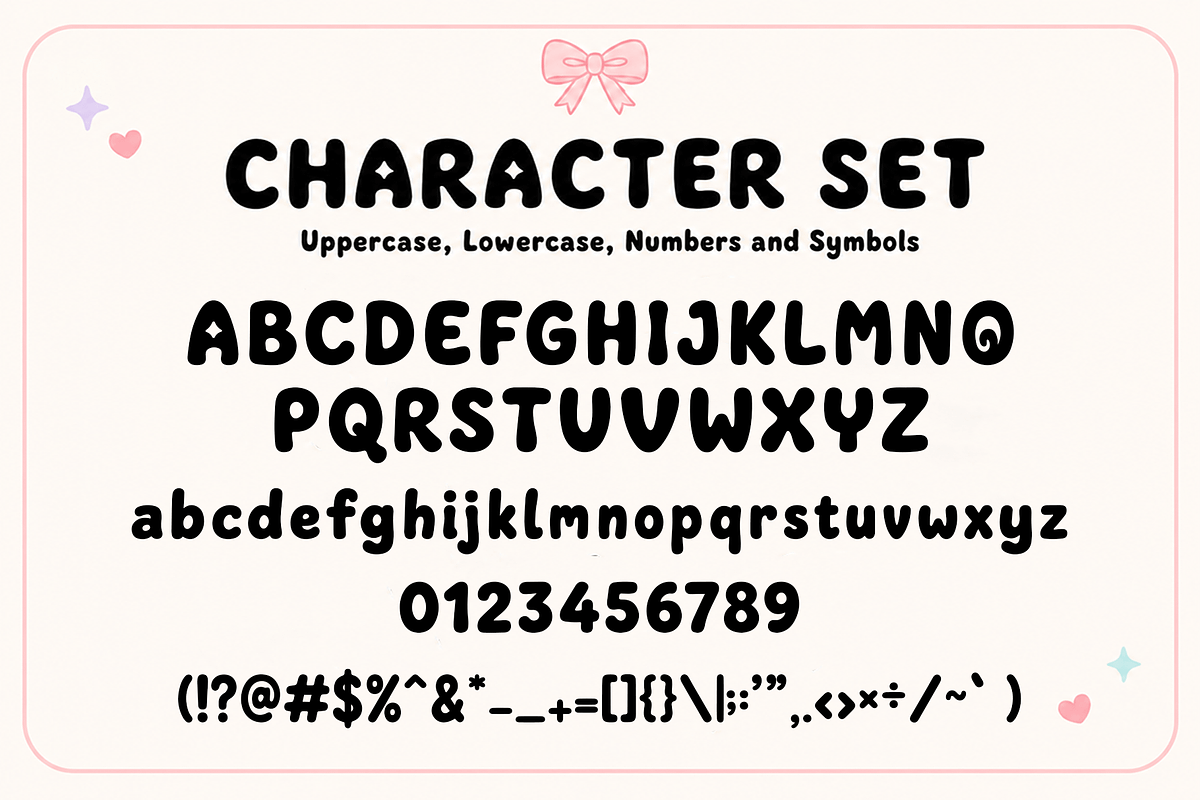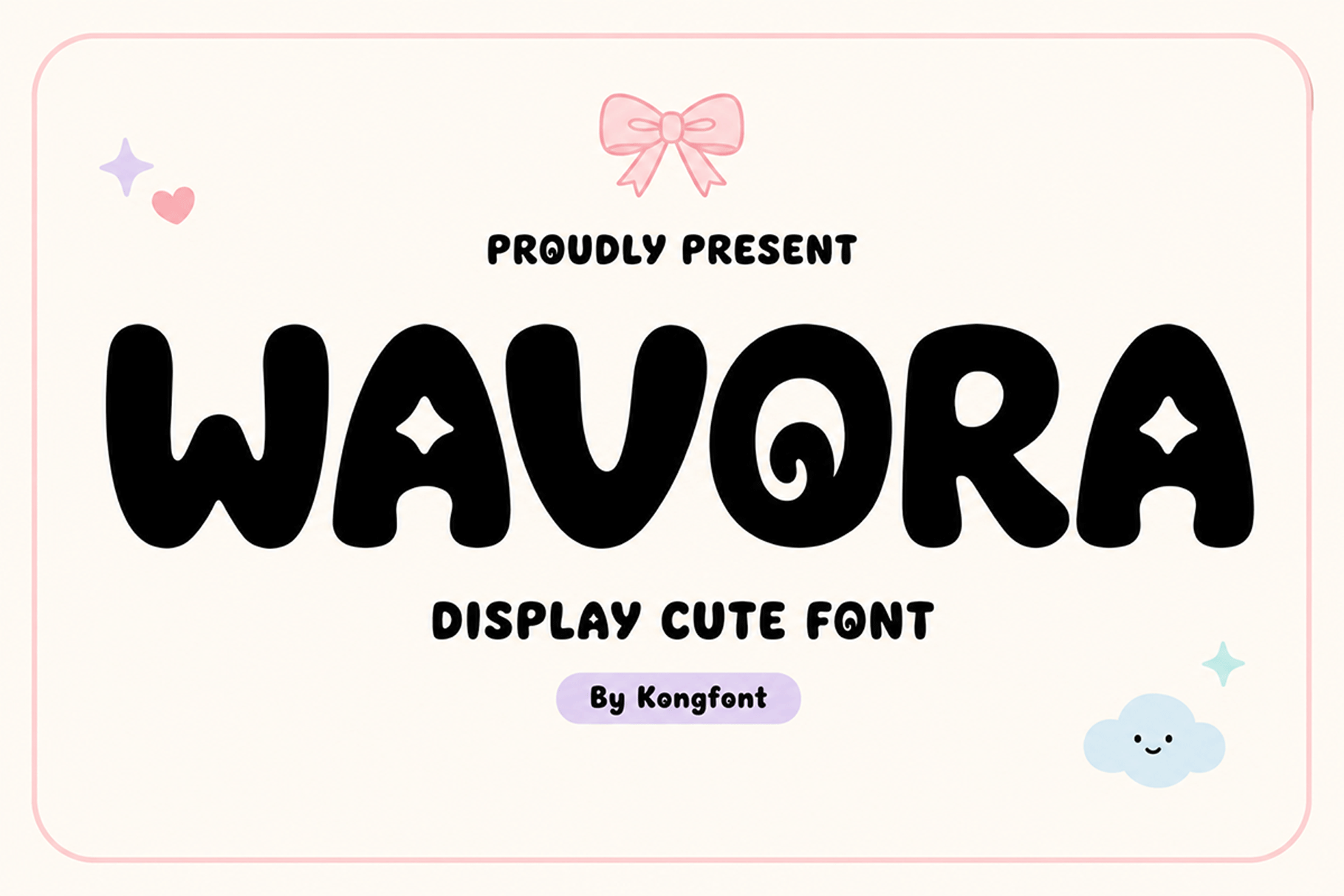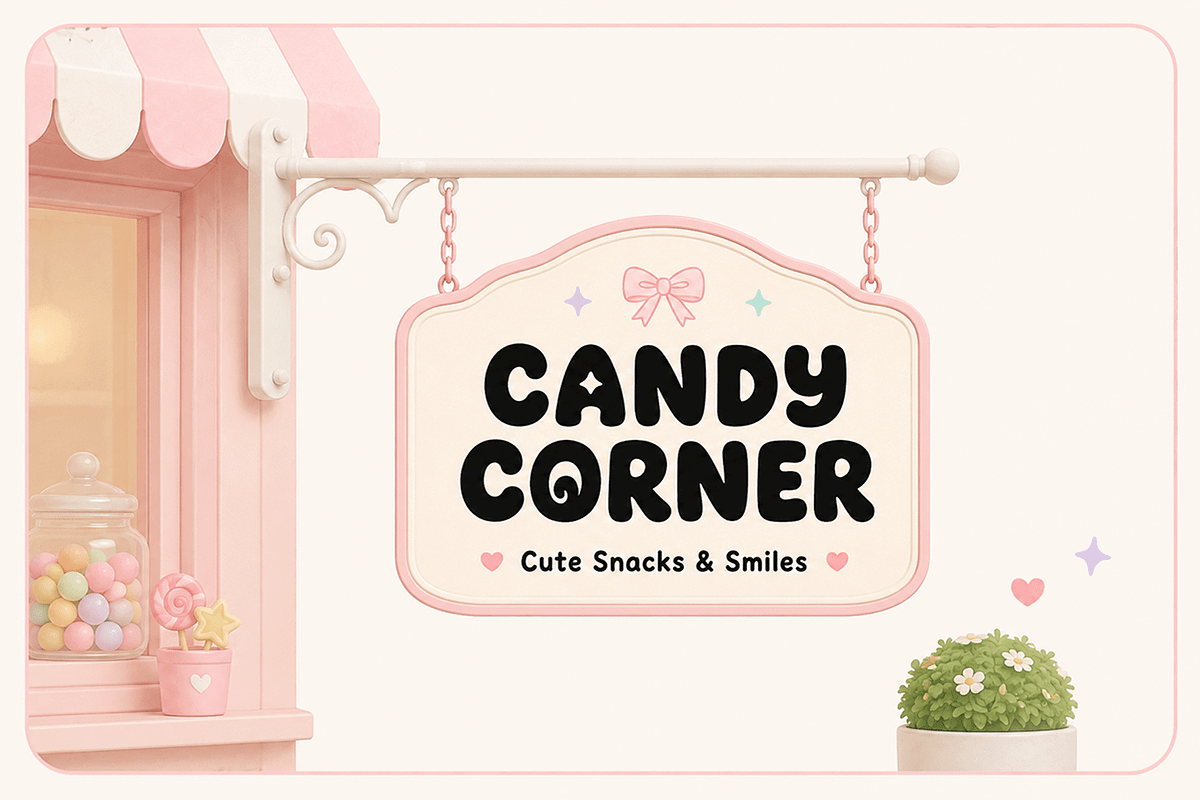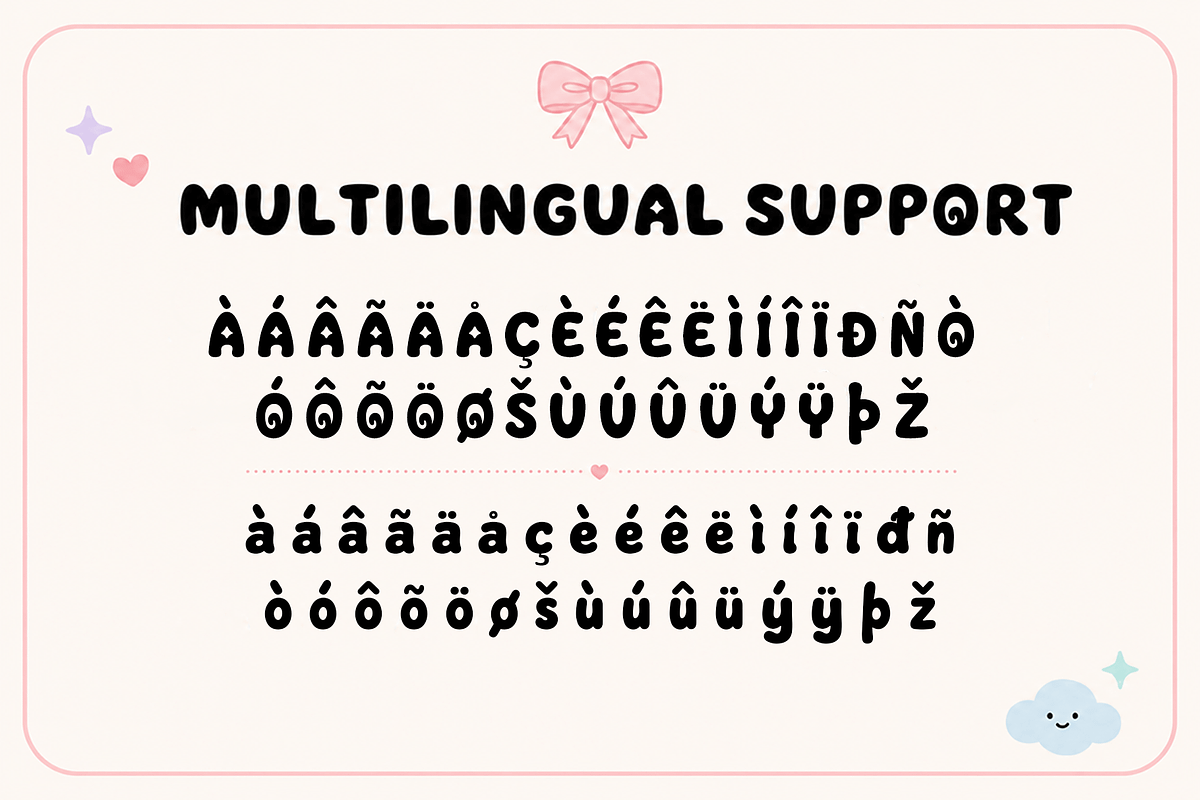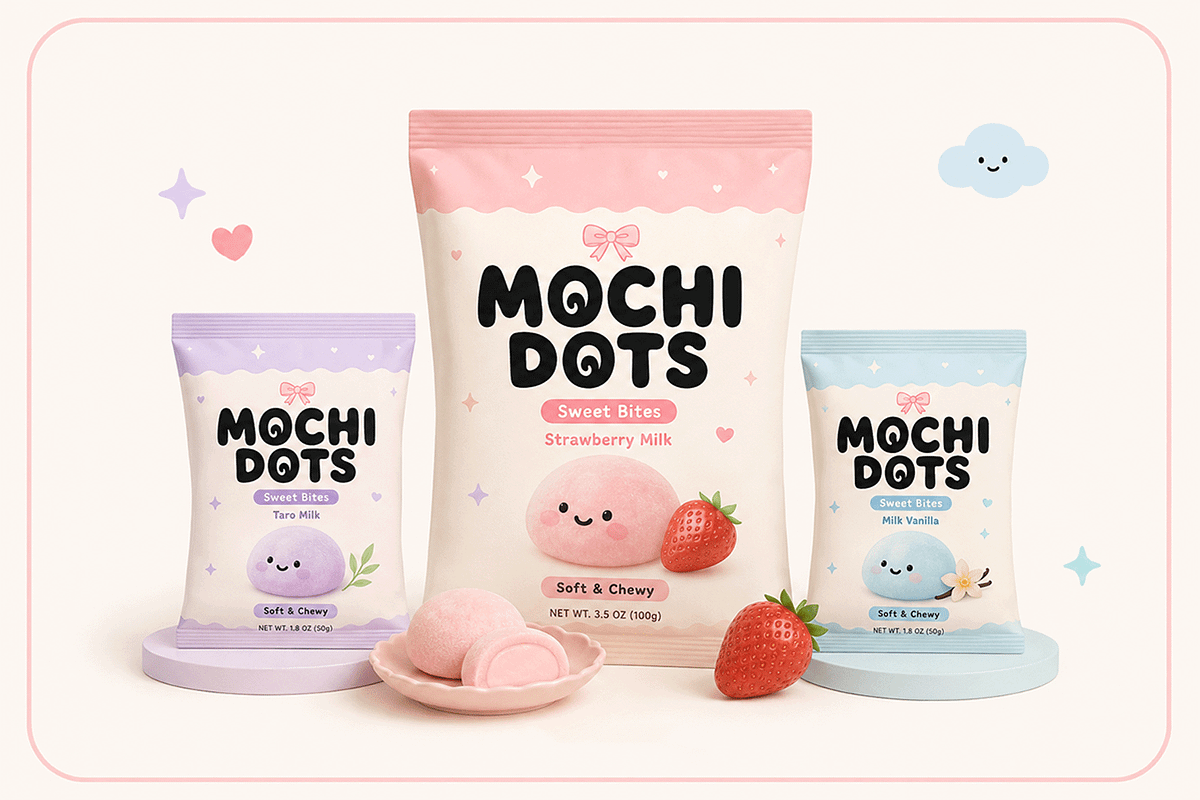
Wavora - Cute Playful Display Font
Meet "Wavora," a cute playful display font designed with bold rounded shapes, soft curves, and a cheerful personality. Its chunky letterforms create a friendly and approachable look, making every word feel fun, expressive, and full of character.
Wavora works beautifully for toy brands, baby products, classroom materials, birthday designs, craft projects, beauty packaging, lifestyle products, and playful digital content. Its soft visual style makes it an excellent choice for projects that need to feel youthful, charming, and easygoing.